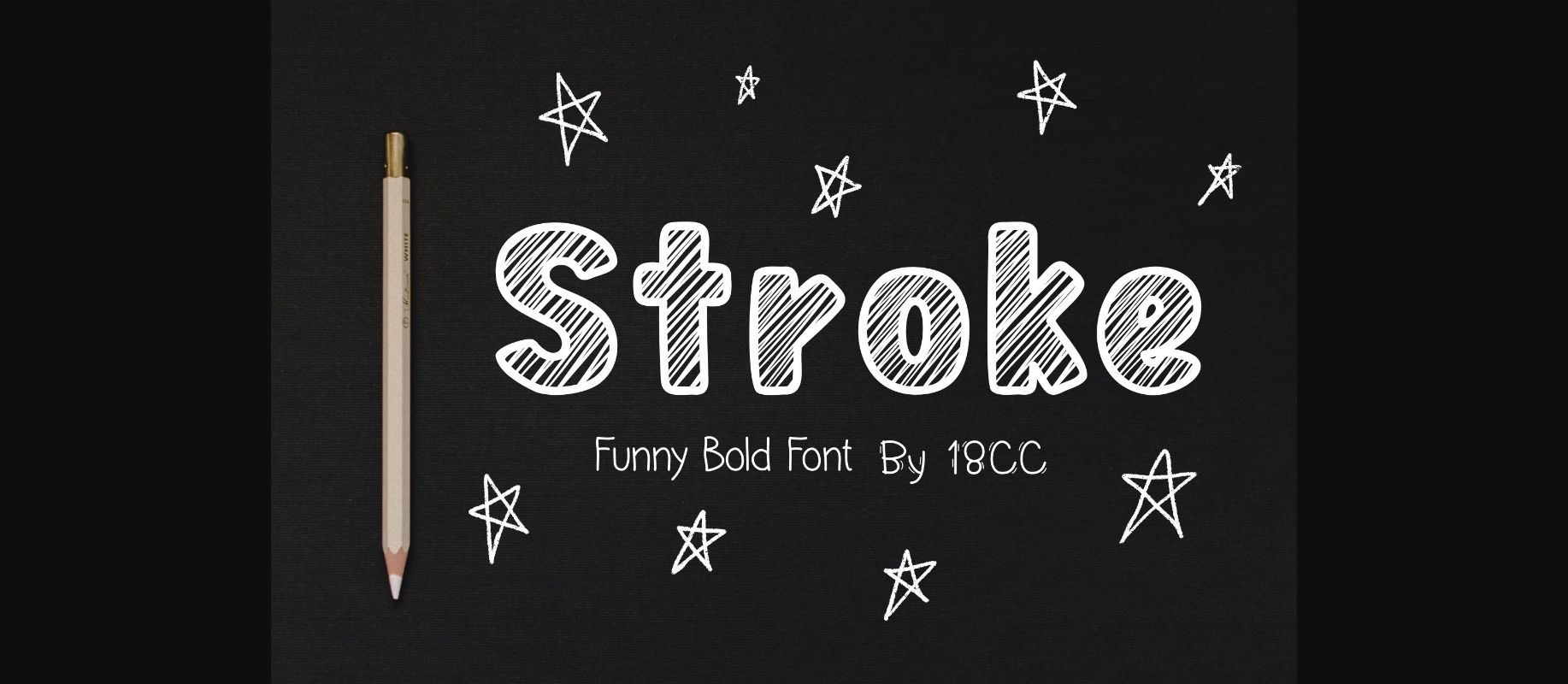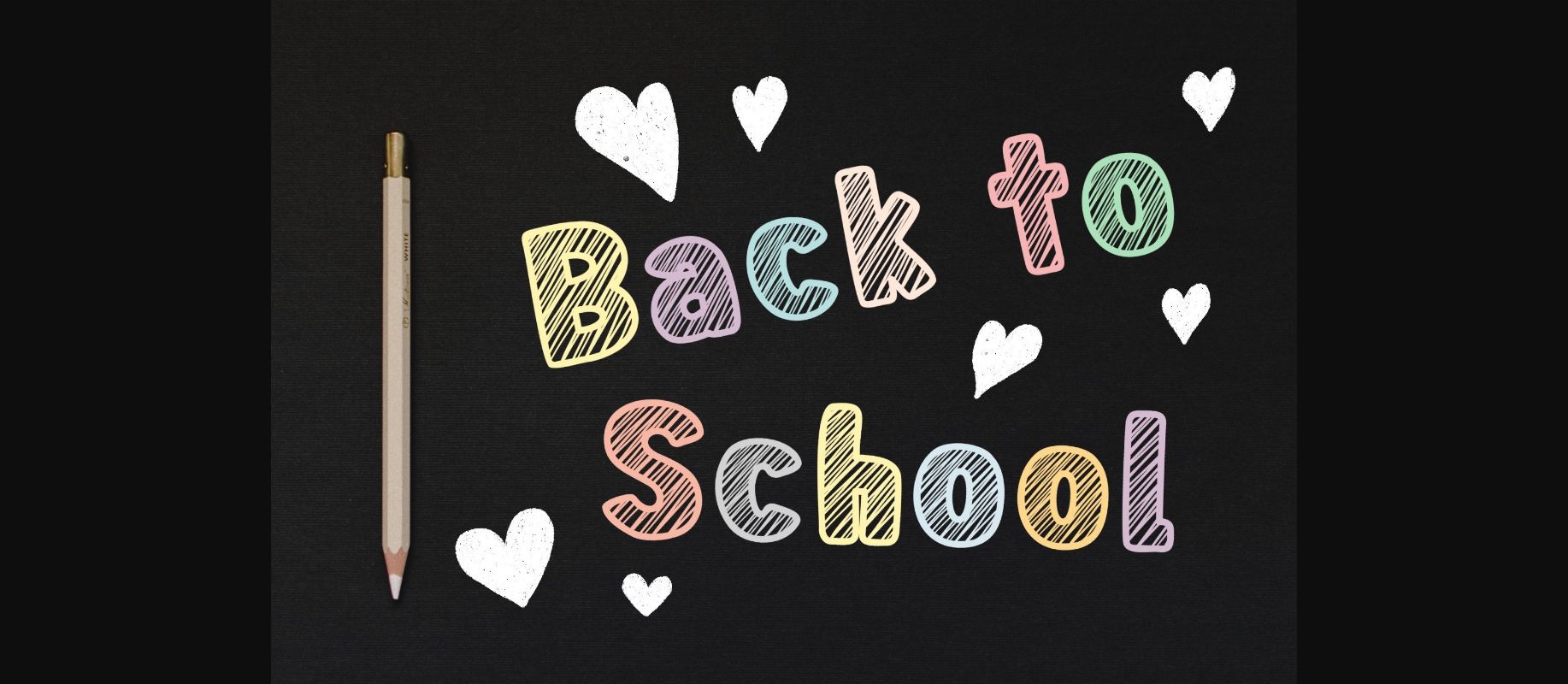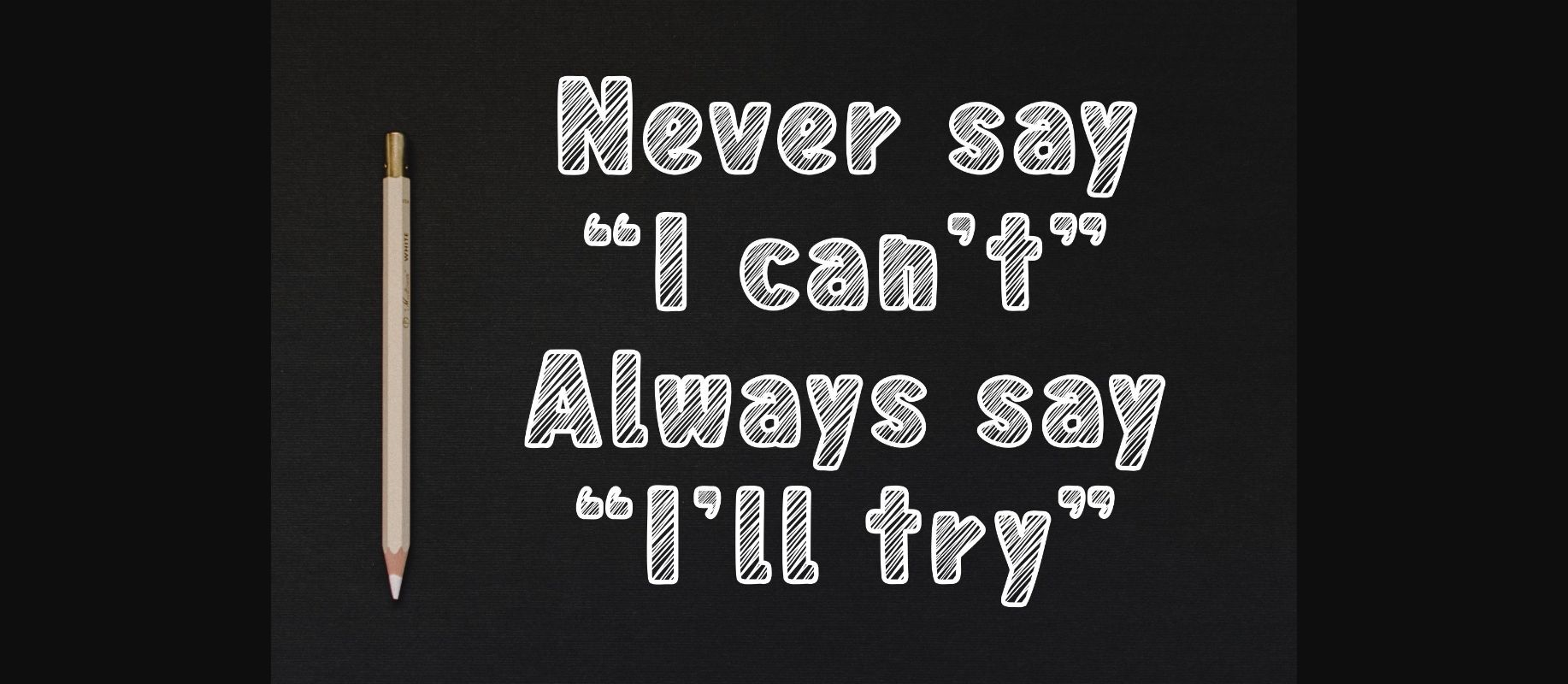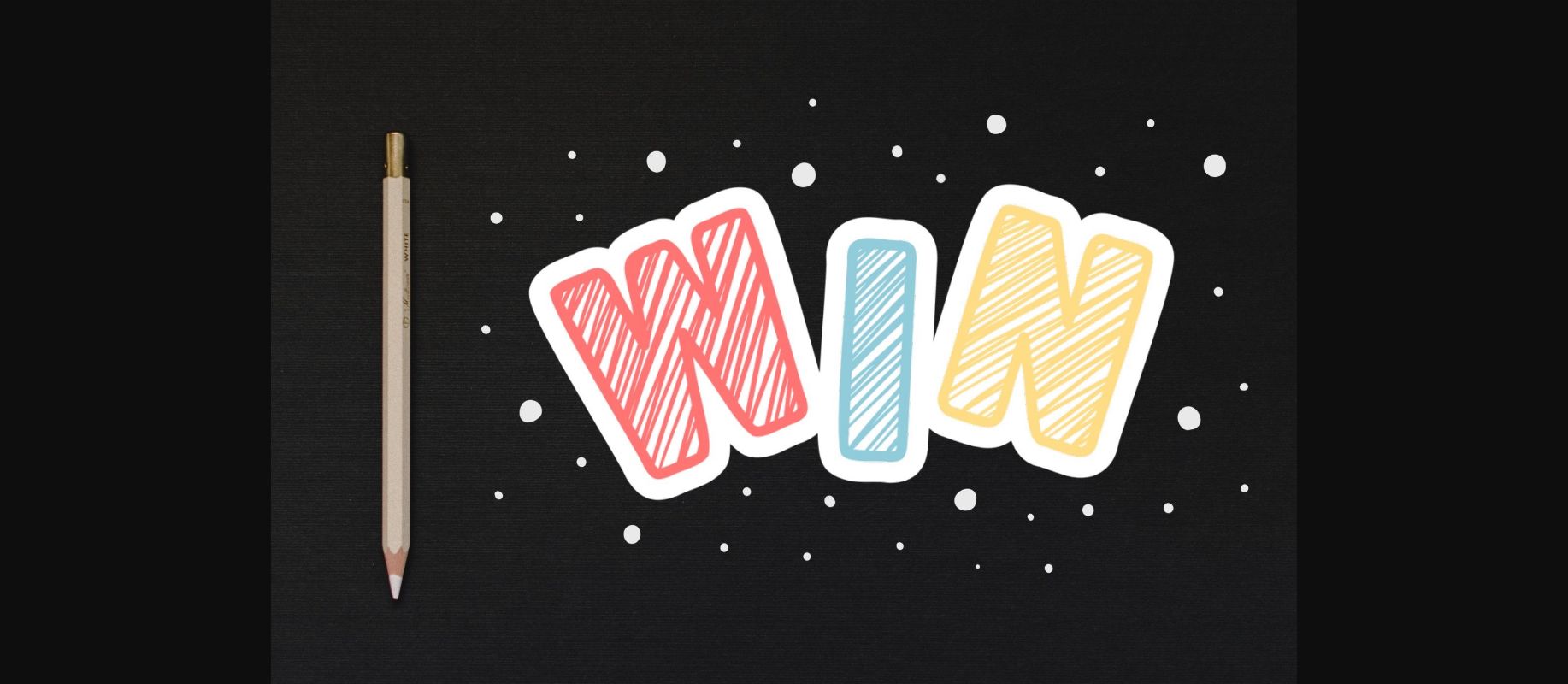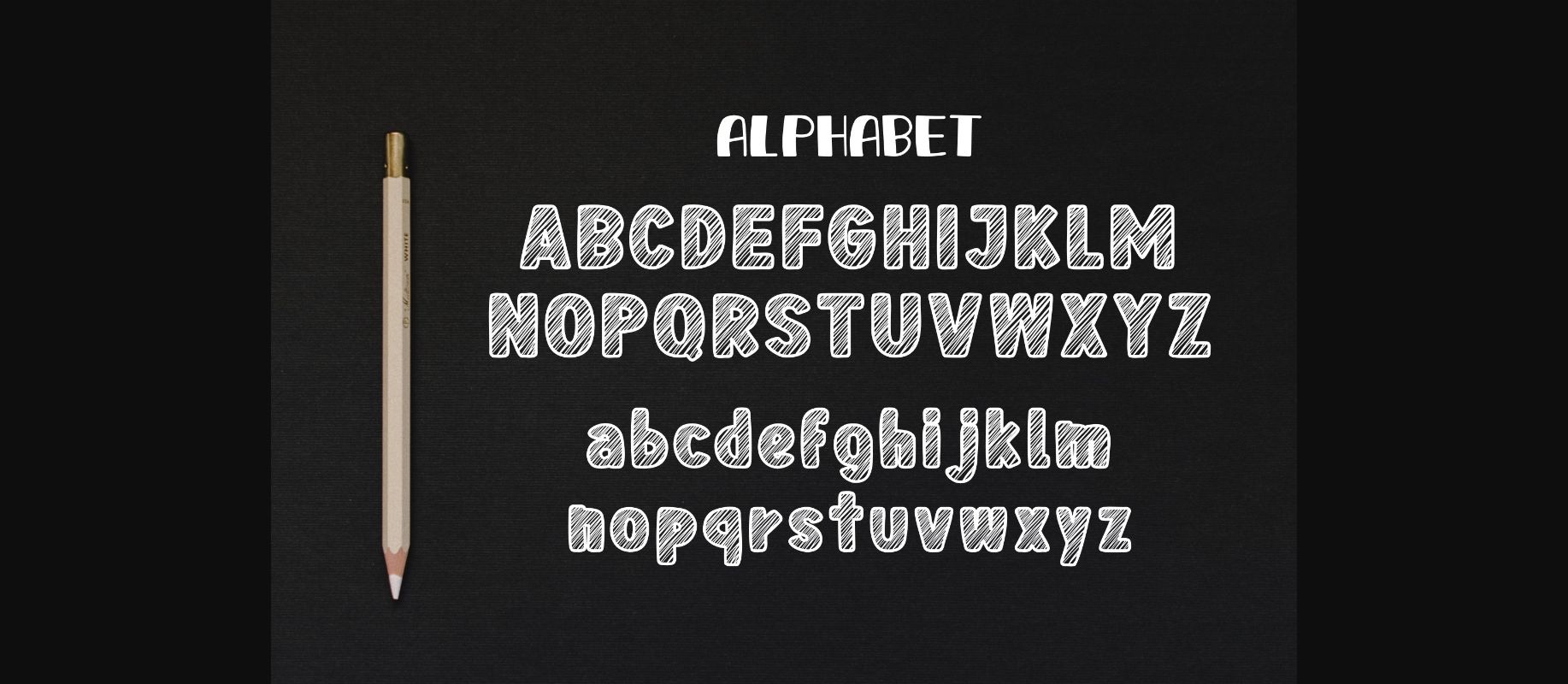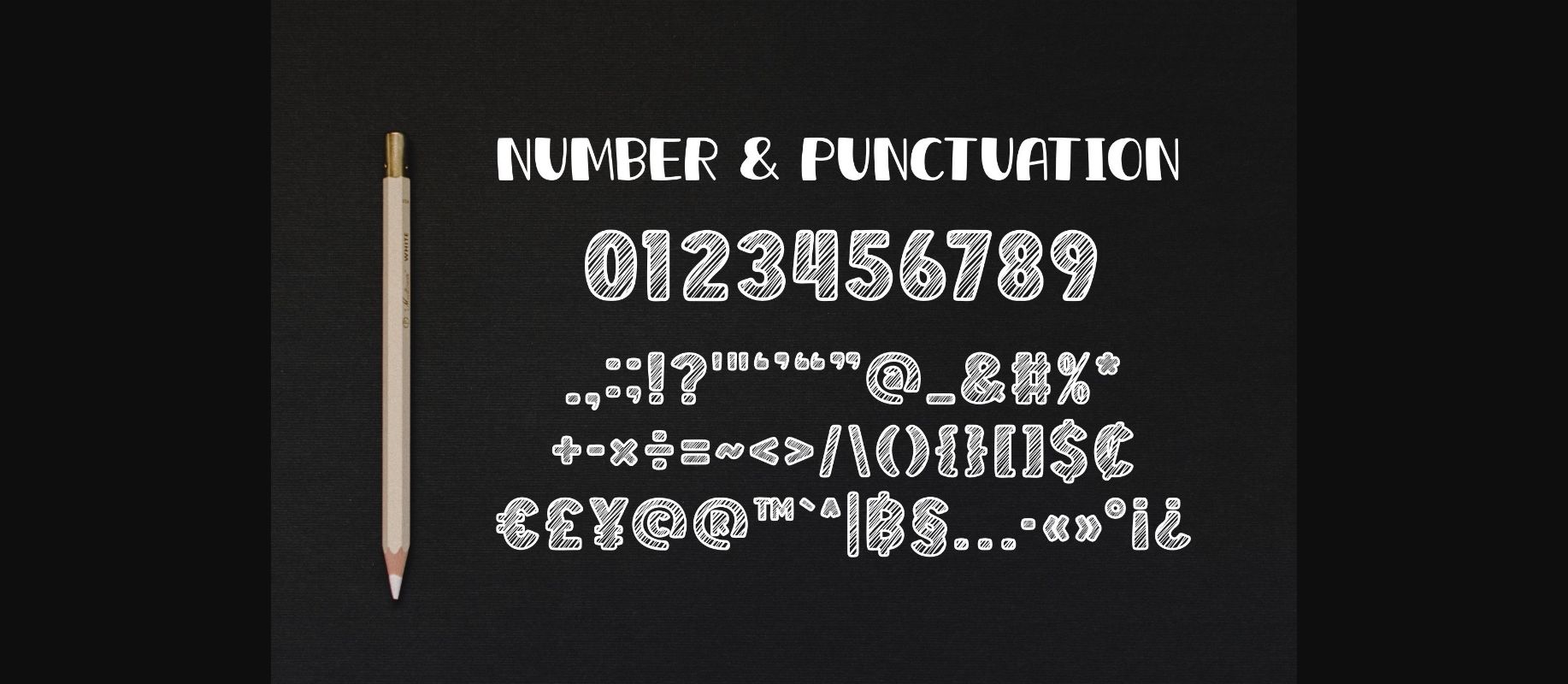
About Stroke Font
Stroke is a modern chalk font that exudes a playful and approachable vibe with its charming hand-drawn aesthetic. Its attractive design boasts clean lines and a bold presence that commands attention. Perfect for adding a touch of fun to any project, from menus and signage to social media graphics and more.